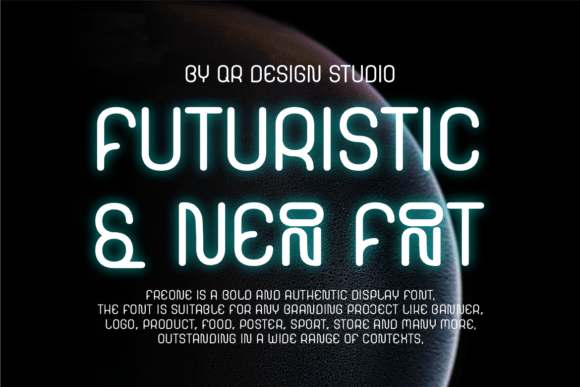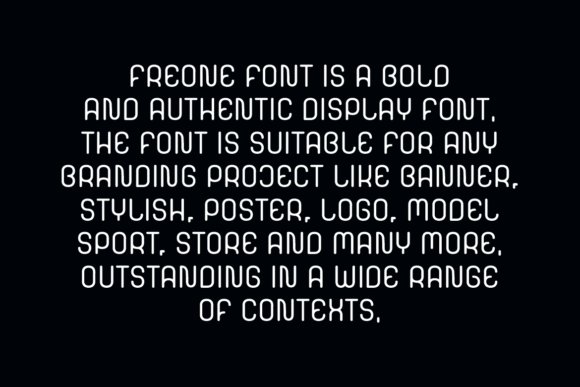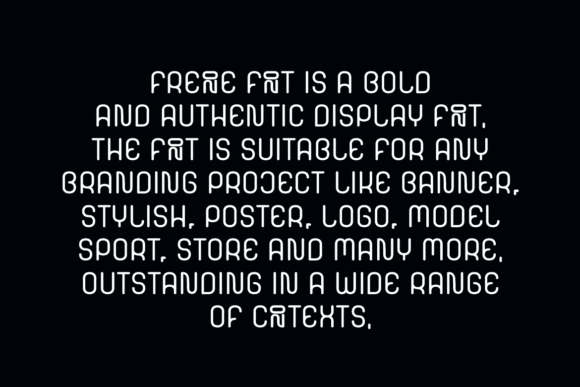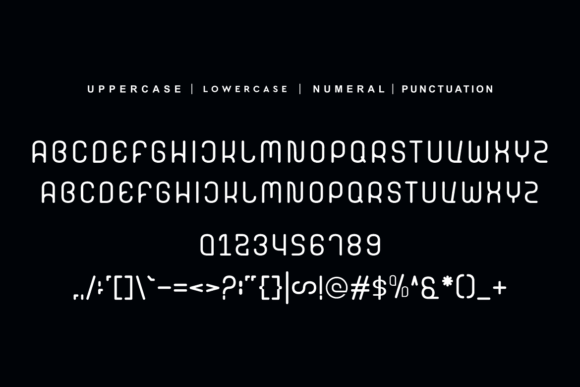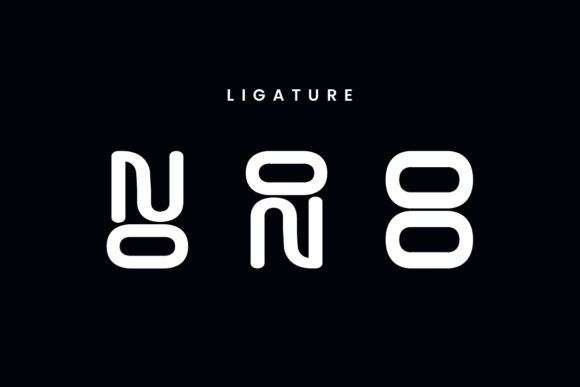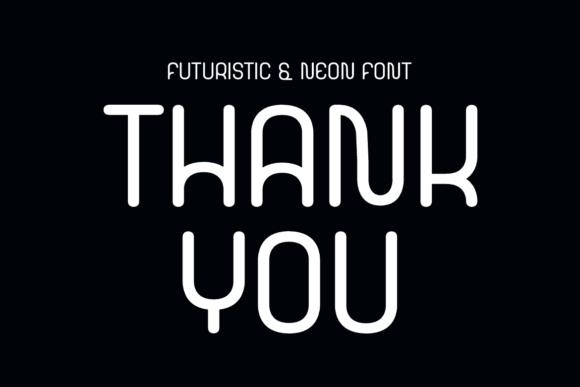
Introduction to Freone Font
Have you ever stared at a blank canvas, struggling to find the perfect font to bring your creative vision to life? That was me, until I discovered the Freone Font. Its bold and assertive sans serif style instantly captivated me, and I knew I had to dive deeper. Whether you’re a seasoned designer or just starting out, the Freone Font is an invaluable addition to any design resource.
As a valuable design resource, the Freone Font has the power to elevate even the most mundane designs into stunning works of art. Whether you’re working on a personal project or collaborating with a team, this font is sure to inspire and impress.
Key Features of Freone Font
- Unique, modern design that stands out in various creative projects, from graphic design to digital art.
Honest Review: Freone Font
- High-quality design: The Freone Font is beautifully crafted, with clean lines and a modern aesthetic.
However, there are a few limitations: ⚠️
- Limited character set: While the font is beautiful, the character set is relatively small, which may limit its use in certain projects.
- No bold or italic versions: If you’re looking for a font with bold or italic versions, you may be disappointed.
Overall, I’m impressed with the Freone Font. It’s a great addition to any design resource collection, and I’ve already used it in several projects. While it may have some limitations, I believe the benefits far outweigh the drawbacks.
Freone Font
Freone Font is a versatile and high-quality design resource ideal for creative projects. With its unique style and transparent background, this font is perfect for adding a touch of elegance to your designs.
Tips for Getting the Most Out of Freone Font
To get the most out of Freone Font, be sure to use it in conjunction with a high-quality image or background. This will help to create a visually appealing design that showcases the font’s unique style.
Common Use Cases for Freone Font
Freone Font is ideal for use in a variety of creative projects, including logos, business cards, and brochures. It’s also a great choice for use in social media graphics and advertising materials.